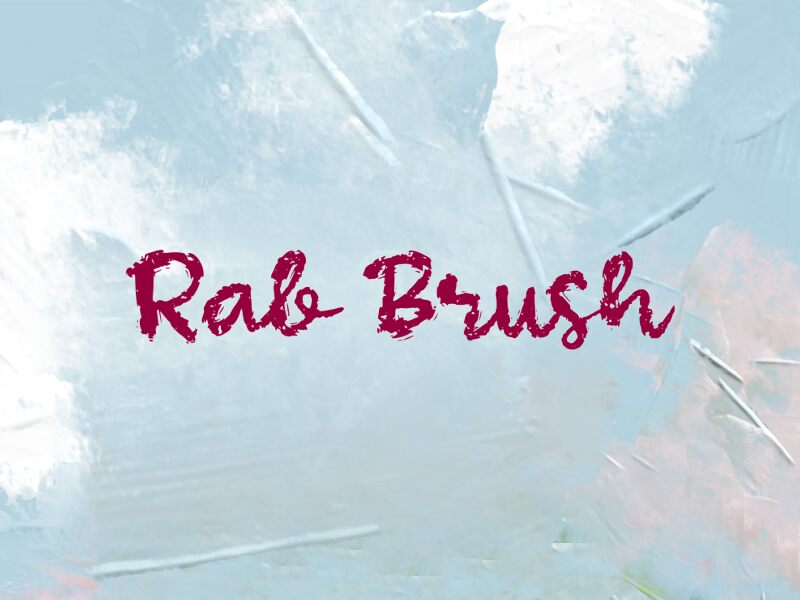
Rab Brush font is a doodle, hand drawn and trash display font designed by wep. This free font has a playful visual appearance and a non-uniform interesting touch that makes it special. If a fun and relaxed style is your goal, this font will play the role perfectly in a blurred and artistic manner.
Use this font for your posters, book covers, magazine covers, social media designs, invitations, and many more. Some educational related designs may be a creative option for its usage also.
Rab Brush is an expressive and stylish free font that adds a unique flair to your designs. With its dynamic brush strokes, this font is perfect for creating eye-catching headlines, logos, and posters. The versatility of Rab Brush allows it to blend seamlessly into various design projects, making it an excellent choice for both personal and commercial use.